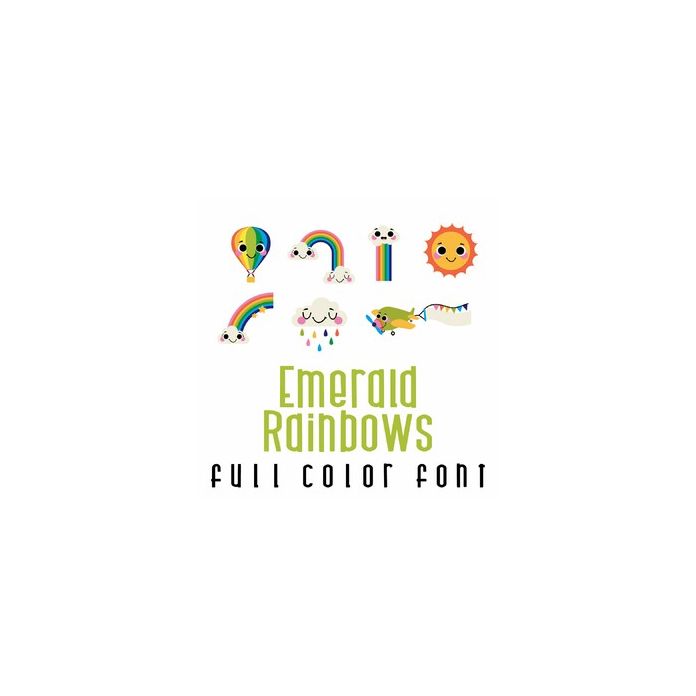
This adorable full-color doodlebat font features 26 rainbow themed imagery. Perfect for cards, crafts, gifts, planner stickers, scrapbook pages, decor, parties, and more!